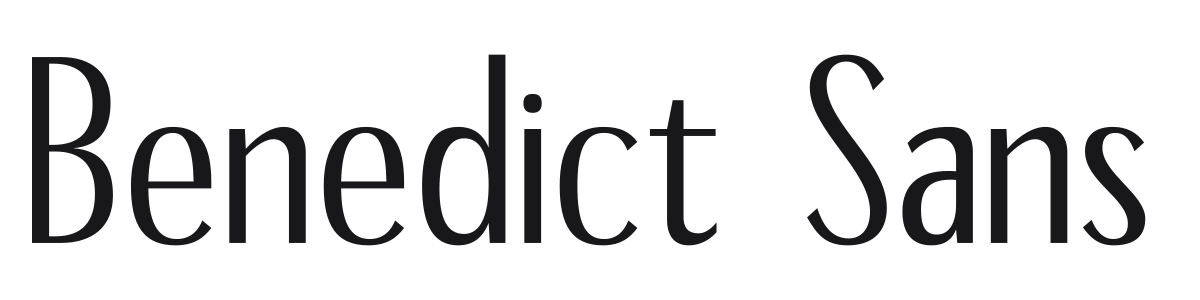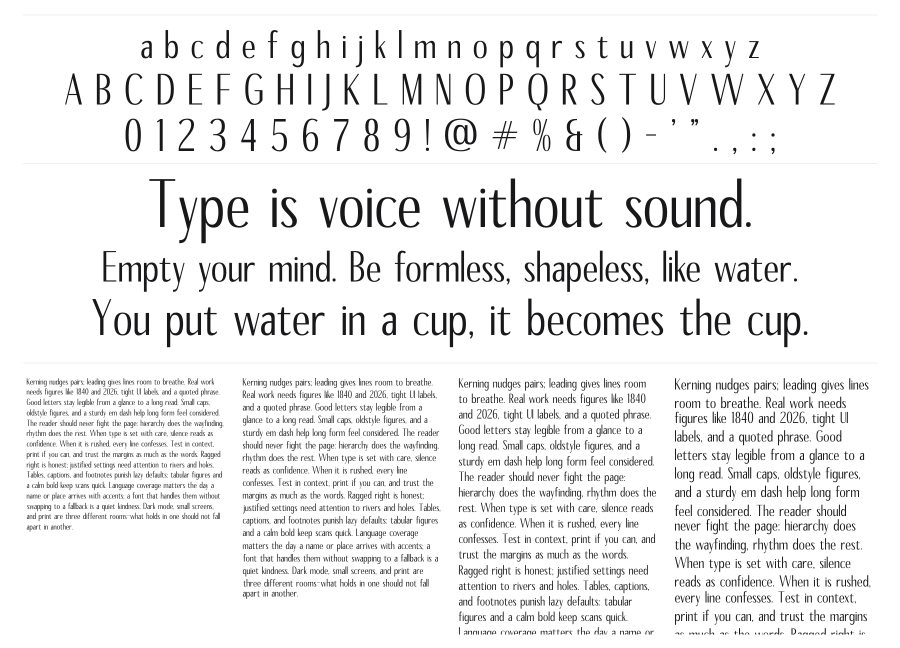
Benedict Sans
Benedict Sans is a condensed humanist sans with tall, narrow proportions and a light, airy weight. Subtle calligraphic traces at key junctions keep the design from feeling purely geometric, lending it a quiet sophistication. It reads naturally at large sizes in fashion editorial, packaging, and identity work.